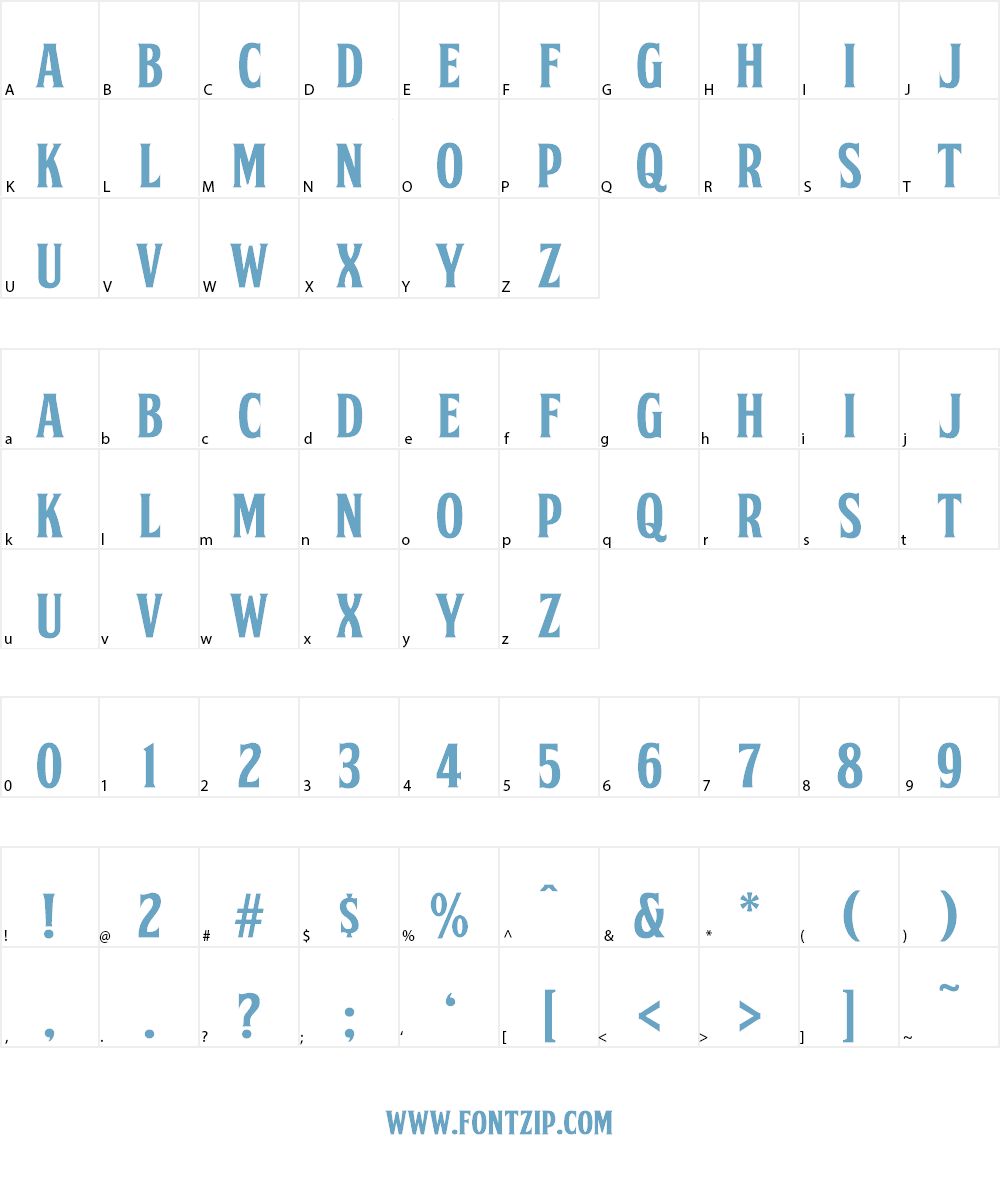
At one time very recently, serifs were lost to the design sinners of the world. Now see them found again. Unearthed and rediscovered. Retribution is not far off. We have been unchained from the belief that gothics have provided us no way back from a lack of variety and interest. Spur serifs have re-emerged.
The commercial version of FTY SKORZHEN comes with a complete lowercase range of characters rather than the duplicated uppercase range applied to the lowercase keys as typically provided in the freeware version of The Fontry's fonts. Secure payment and immediate download is provided by Paypal and Payloadz.